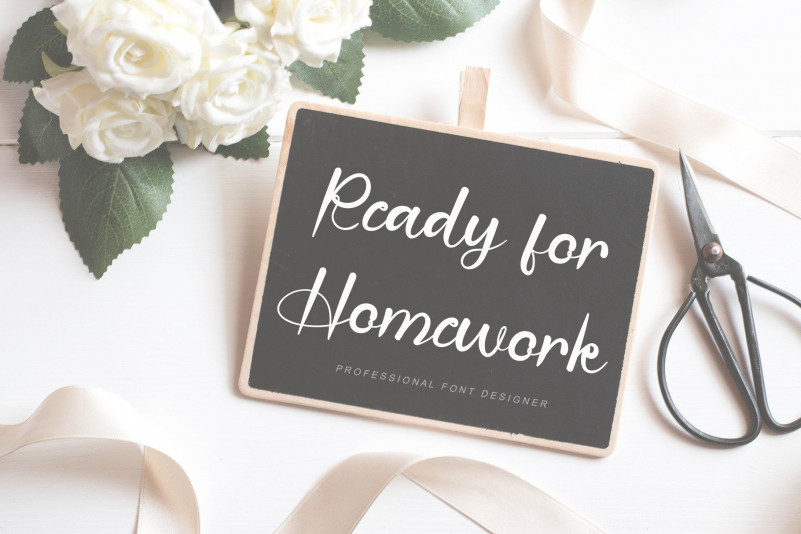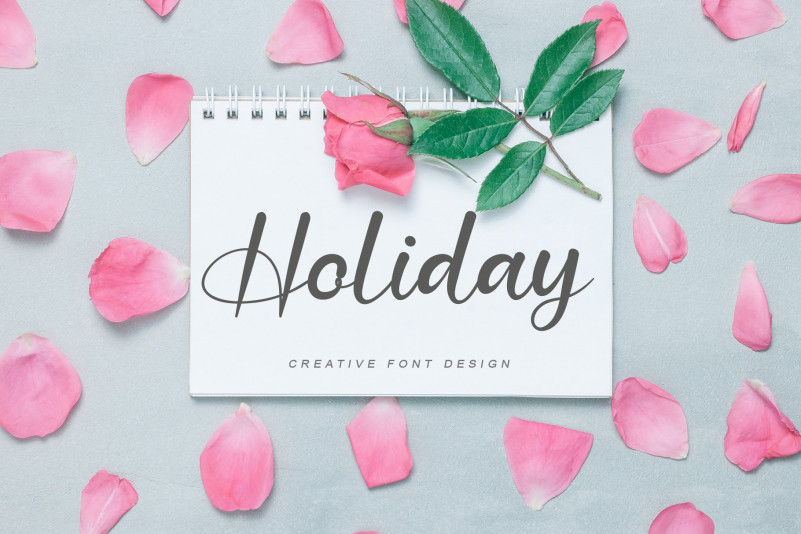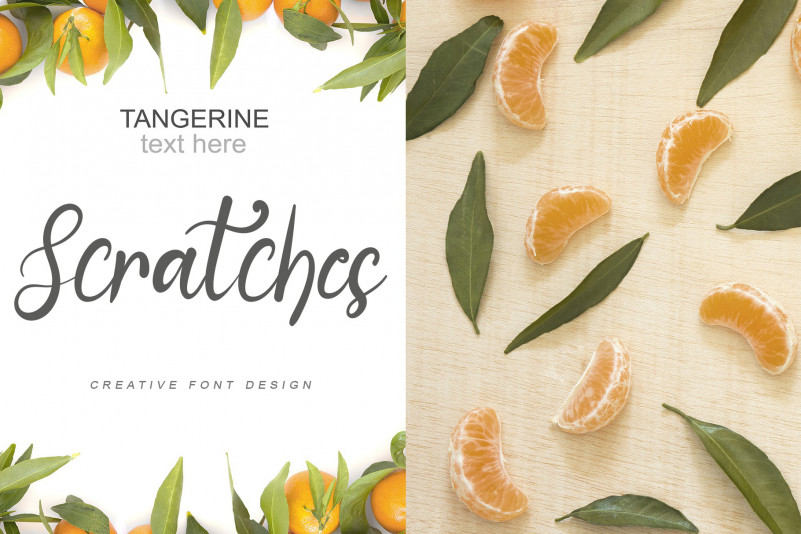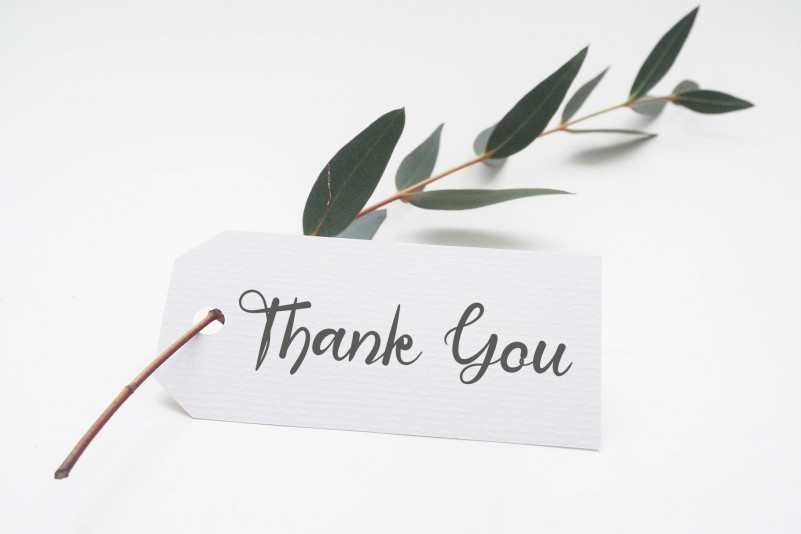
Hello Handwriting Font
Hello Handwriting Script Font
This is a delicate and elegant handwritten font. Its distinct and well balanced letters make this font a masterpiece. Fall in love with its incredibly versatile style and use it to create spectacular designs!